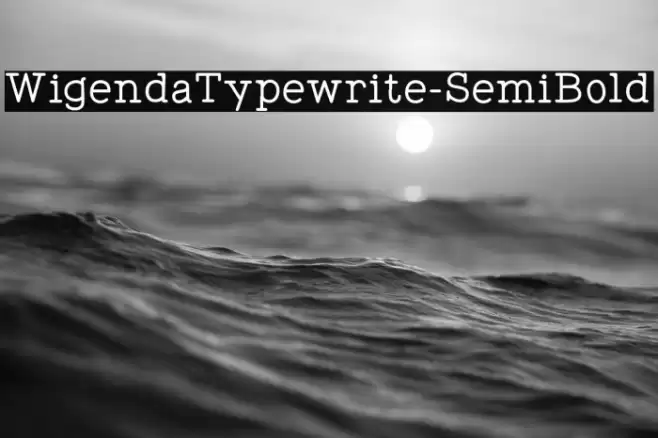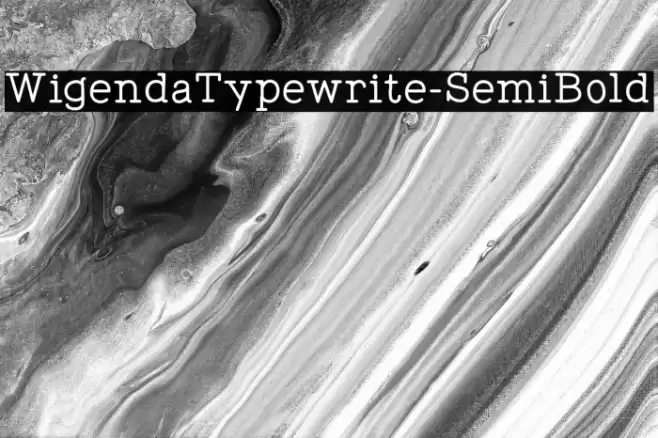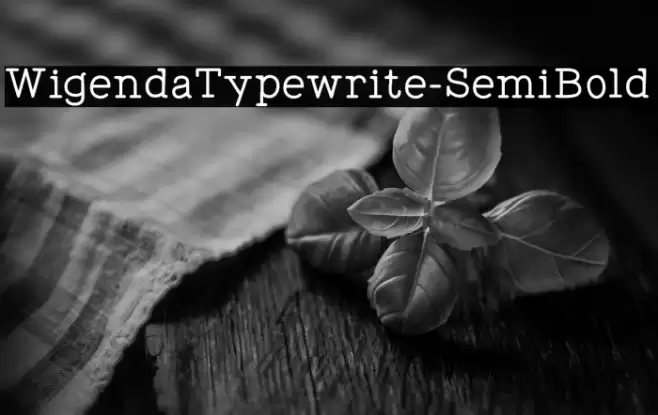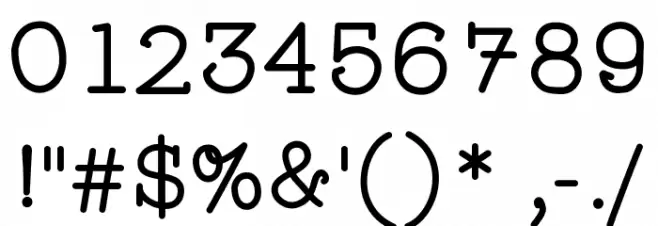
WigendaTypewrite-SemiBold Font
WigendaTypewrite-SemiBold Description
This typeface embodies the classic charm of a typewriter font with a modern twist. The characters are monospaced, giving it an authentic typewriter feel, yet each letter is crafted with a subtle elegance that makes it suitable for contemporary use. The uppercase letters are bold and commanding, while the lowercase letters maintain a consistent weight, offering a harmonious balance. The numerals are clear and distinct, ensuring readability. Special characters are thoughtfully designed, maintaining the overall aesthetic. This font is perfect for projects that require a vintage touch with a modern edge.
A modern take on classic typewriter fonts with monospaced characters and a balanced design from Uncategorized fonts.
- Proposed Projects: Ideal for retro-themed designs, coding projects, typewriter art, and any creative work that benefits from a vintage aesthetic.
- Overall Style: Vintage